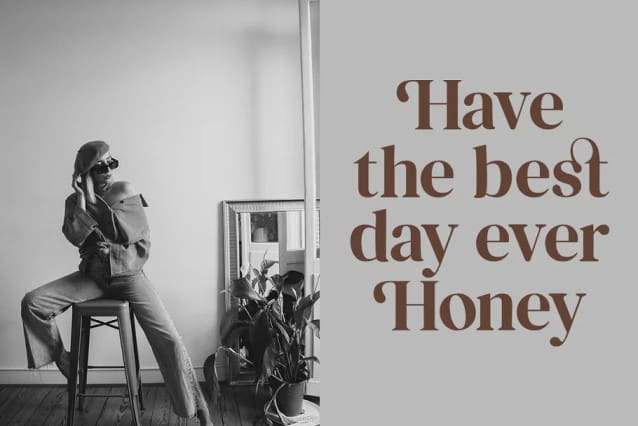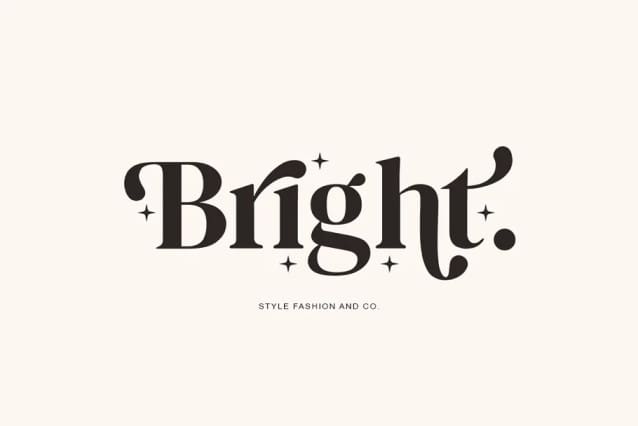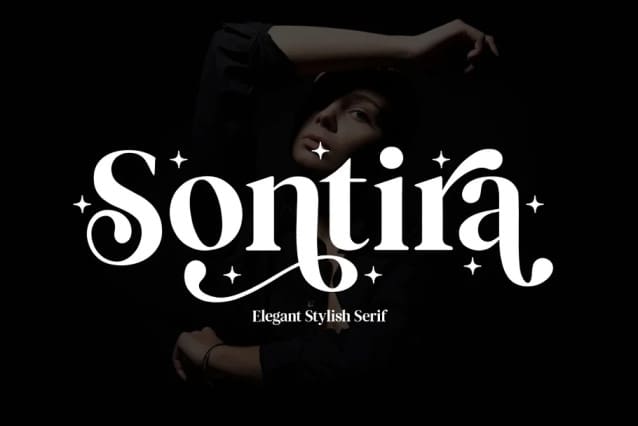
Sontira Font
Sontira Font is a stylish font that is chic, elegant and unique font that uses ligatures to smoothly link letters. Perfect for branding, logos, invitation, masterheads and more.